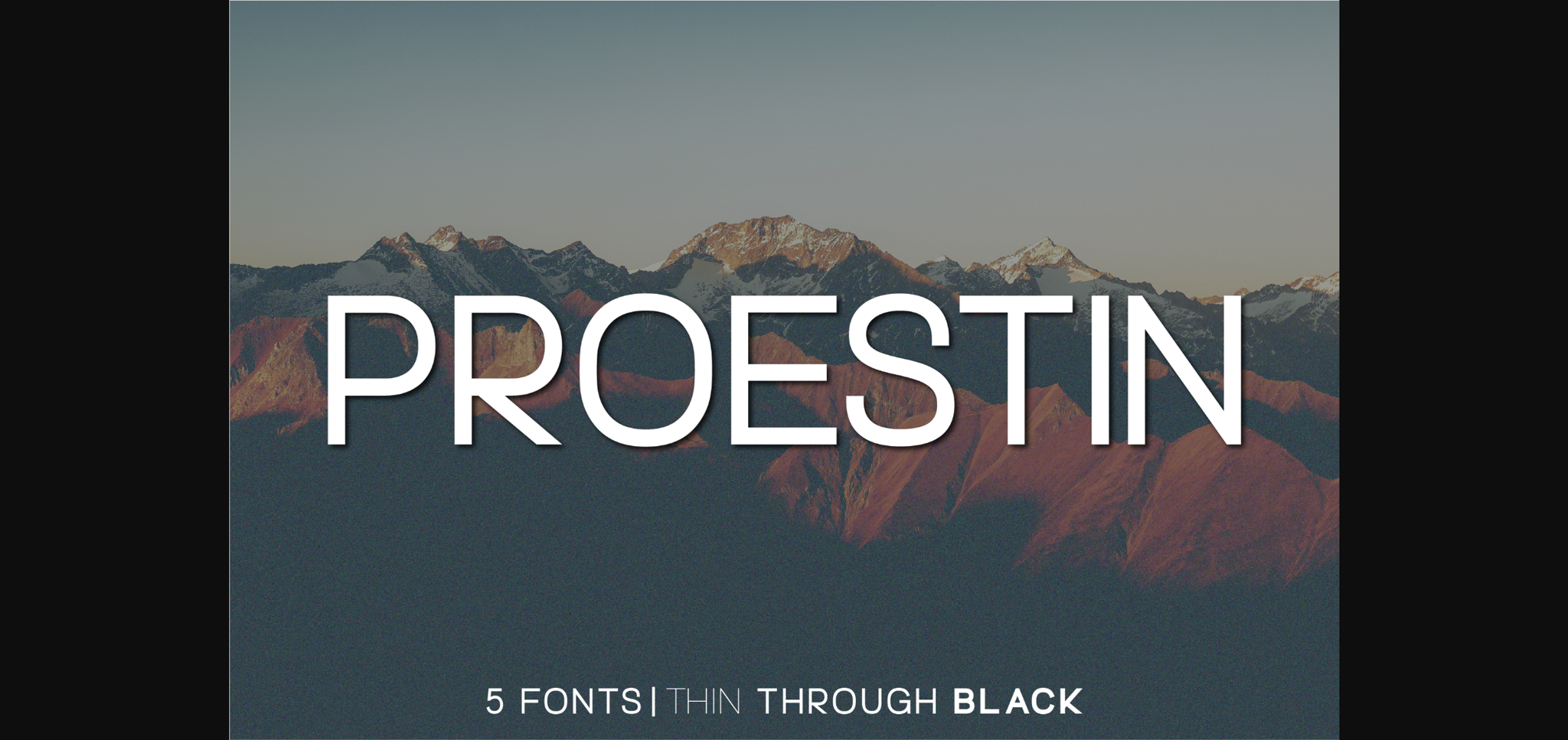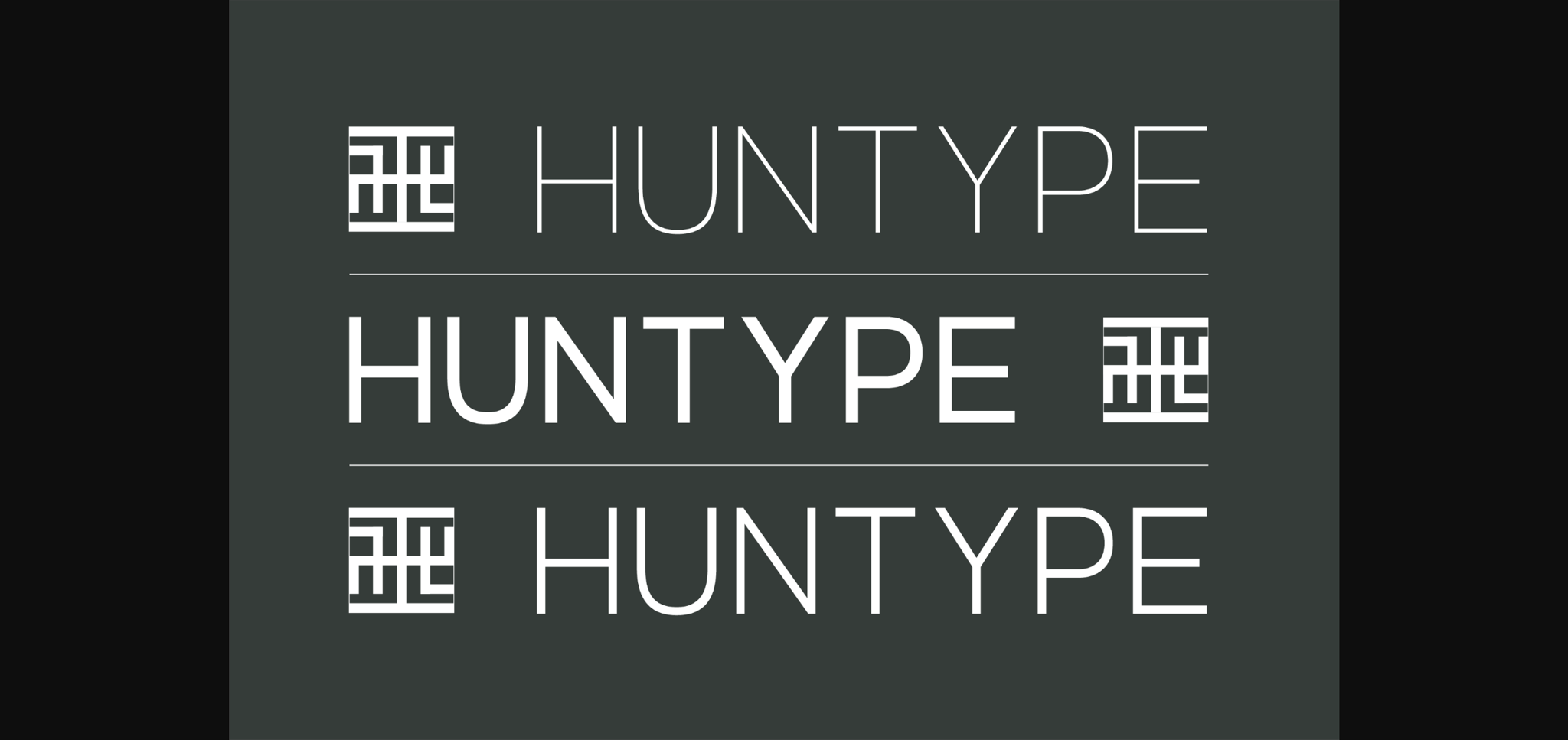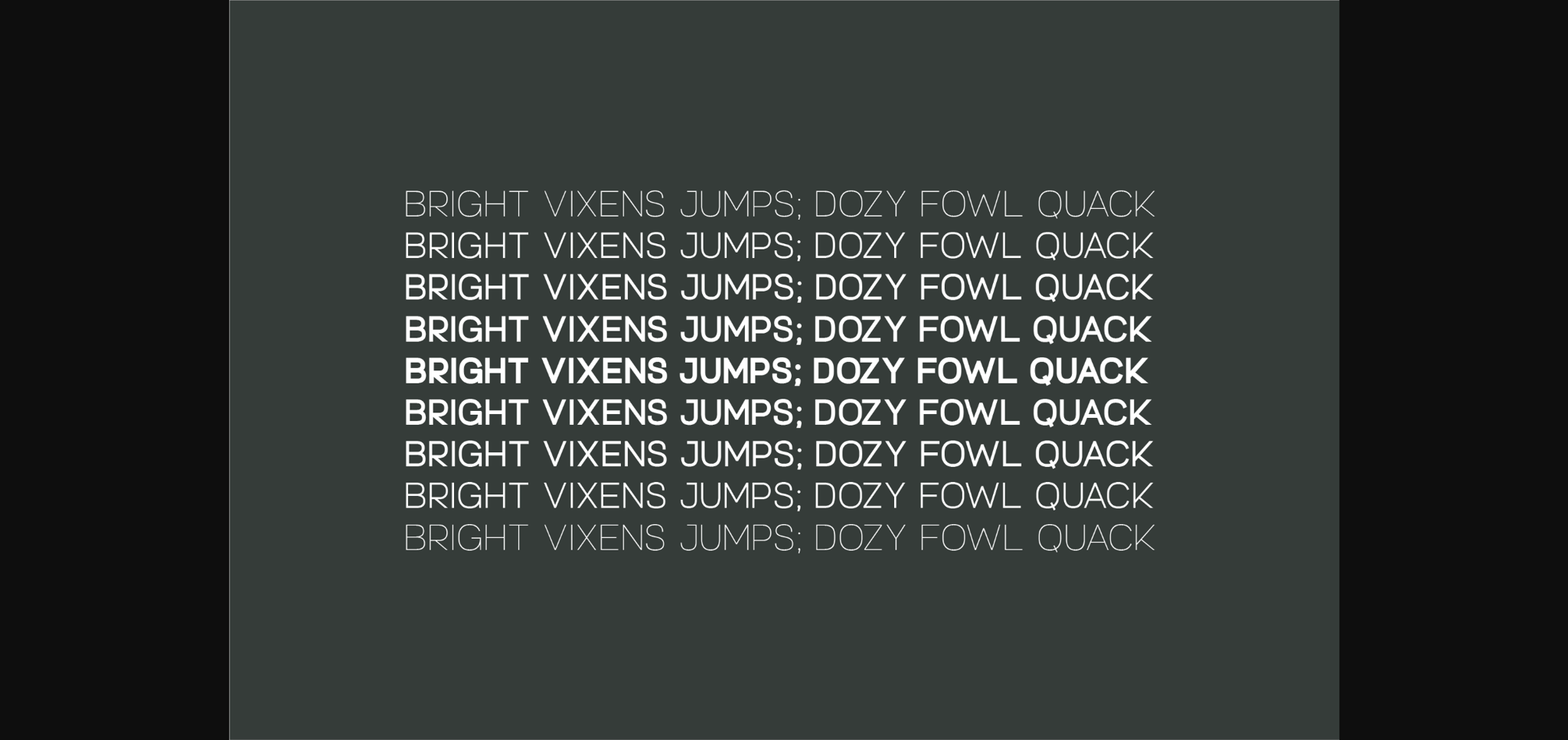
About Proestin Font
Introducing Proestin, a meticulously crafted font family that epitomizes elegance, modernity, and versatility. With its five distinct weights—thing, light, regular, black and bold.
Proestin offers a wide range of creative possibilities, making it the perfect choice for designers and content creators. Whether you’re aiming for a subtle and delicate touch or a bold and impactful statement, this font family’s seamless blend of sophistication and contemporary style ensures your projects will shine with distinction.